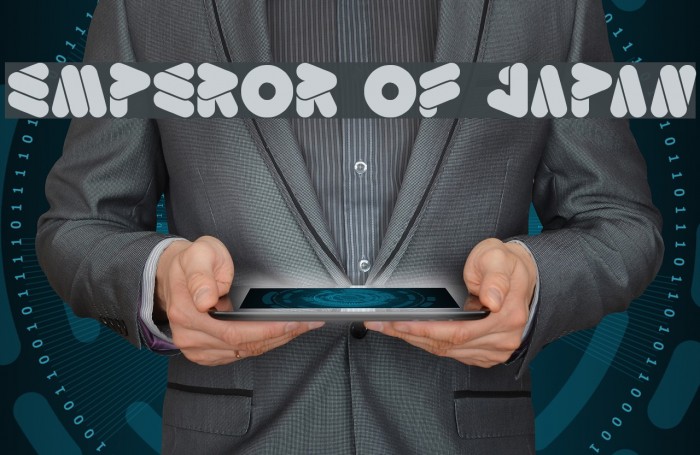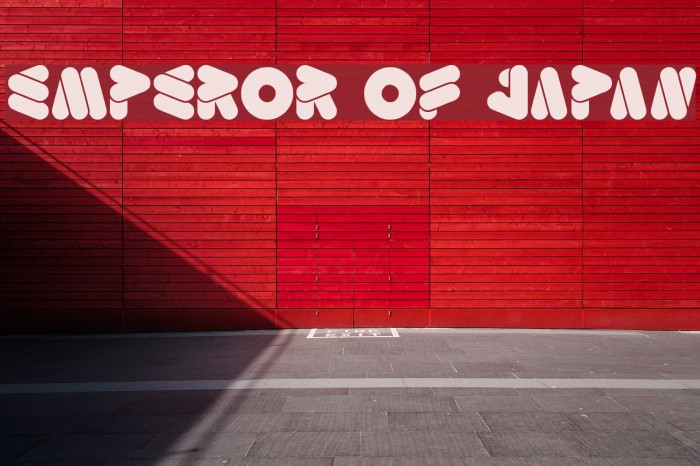
emperor of japan Font
This font features a bold and geometric design with a futuristic and modern aesthetic. Each character is constructed from thick, rounded shapes that create a sense of solidity and impact. The letters are composed of distinct segments, giving them a unique, almost mechanical appearance. The overall style is playful yet structured, making it suitable for creative and contemporary projects. The font's boldness ensures high visibility and readability, while its distinctive style adds a touch of uniqueness to any design.
A bold, geometric font with a futuristic and modern aesthetic.
- Proposed Projects: Ideal for branding, posters, album covers, and any project requiring a modern, eye-catching typeface.